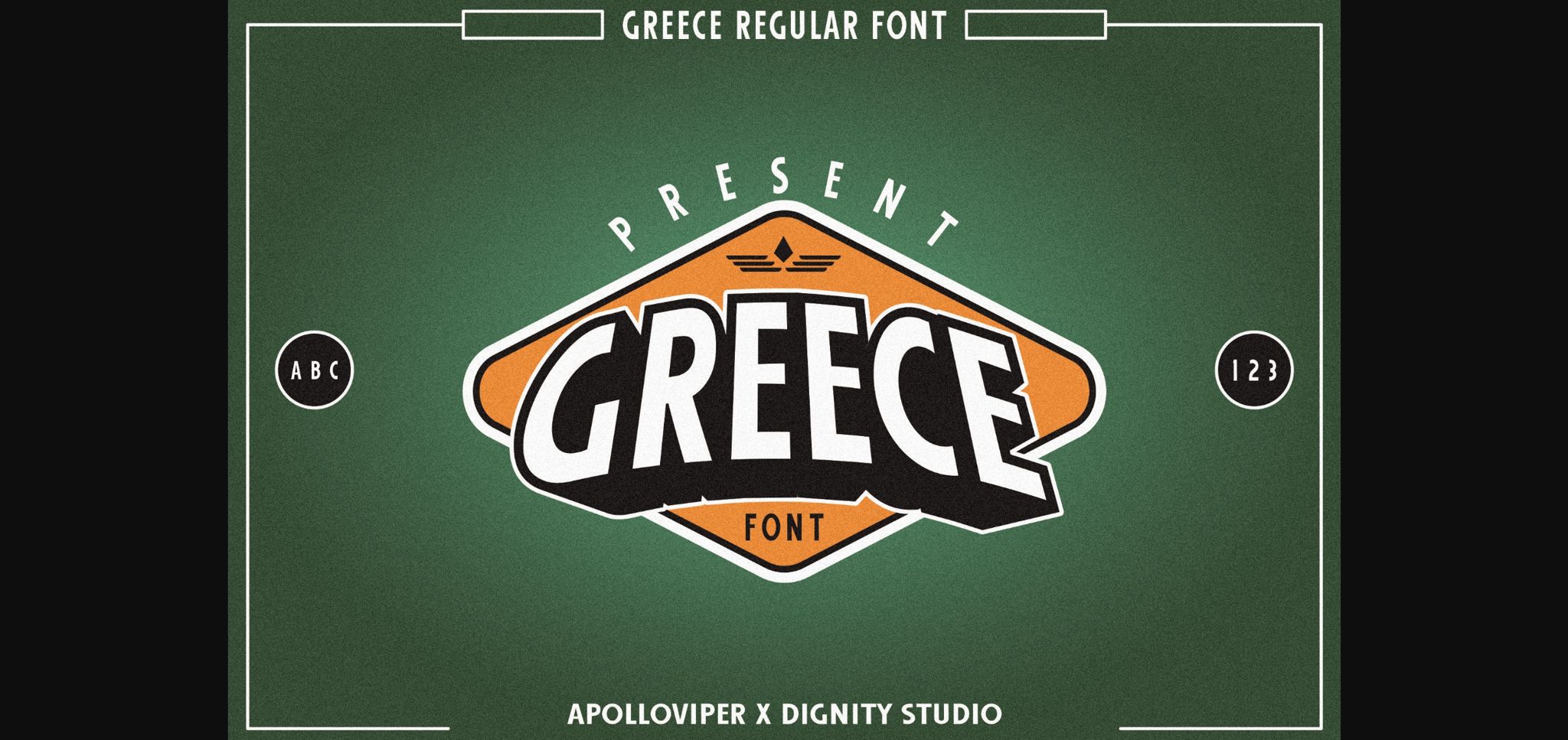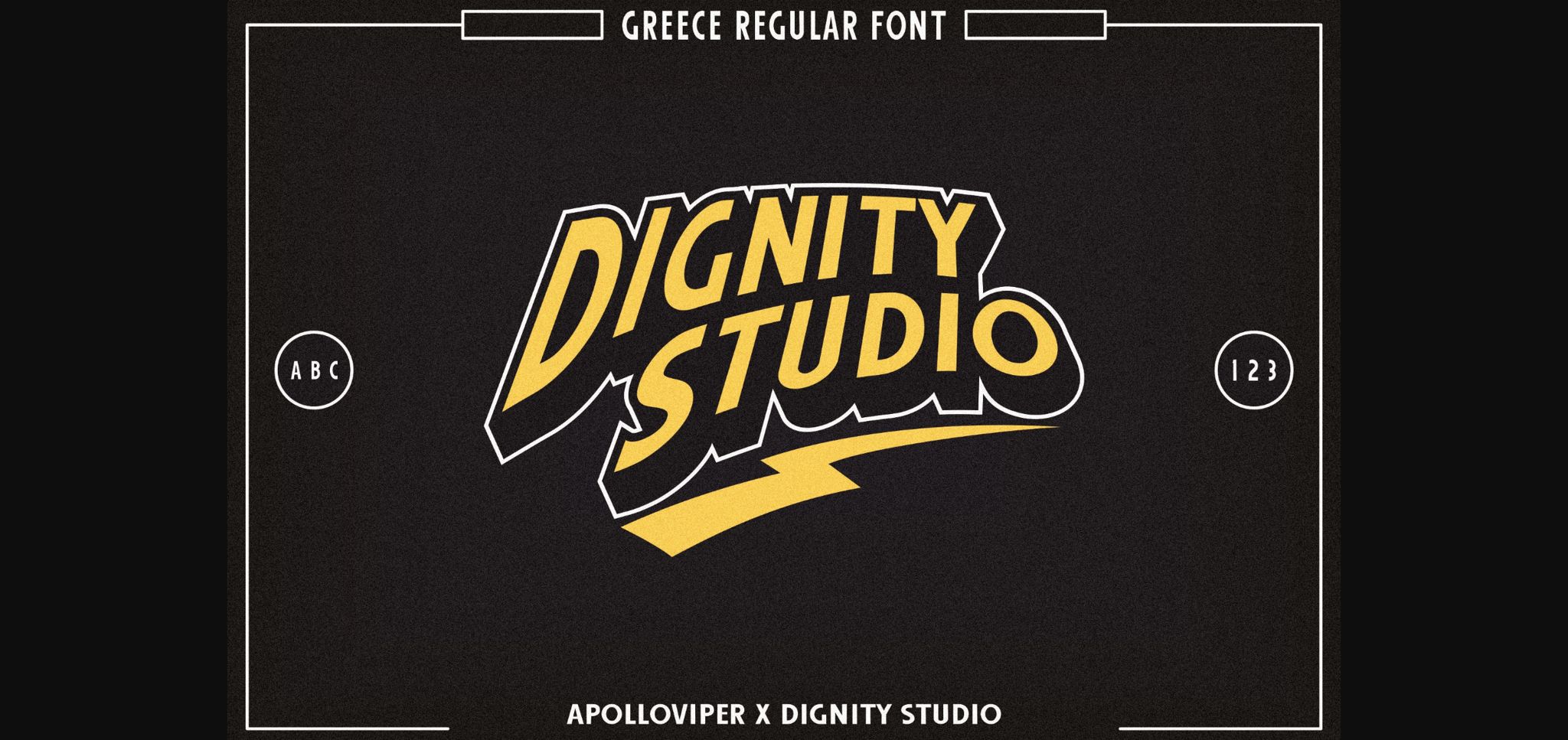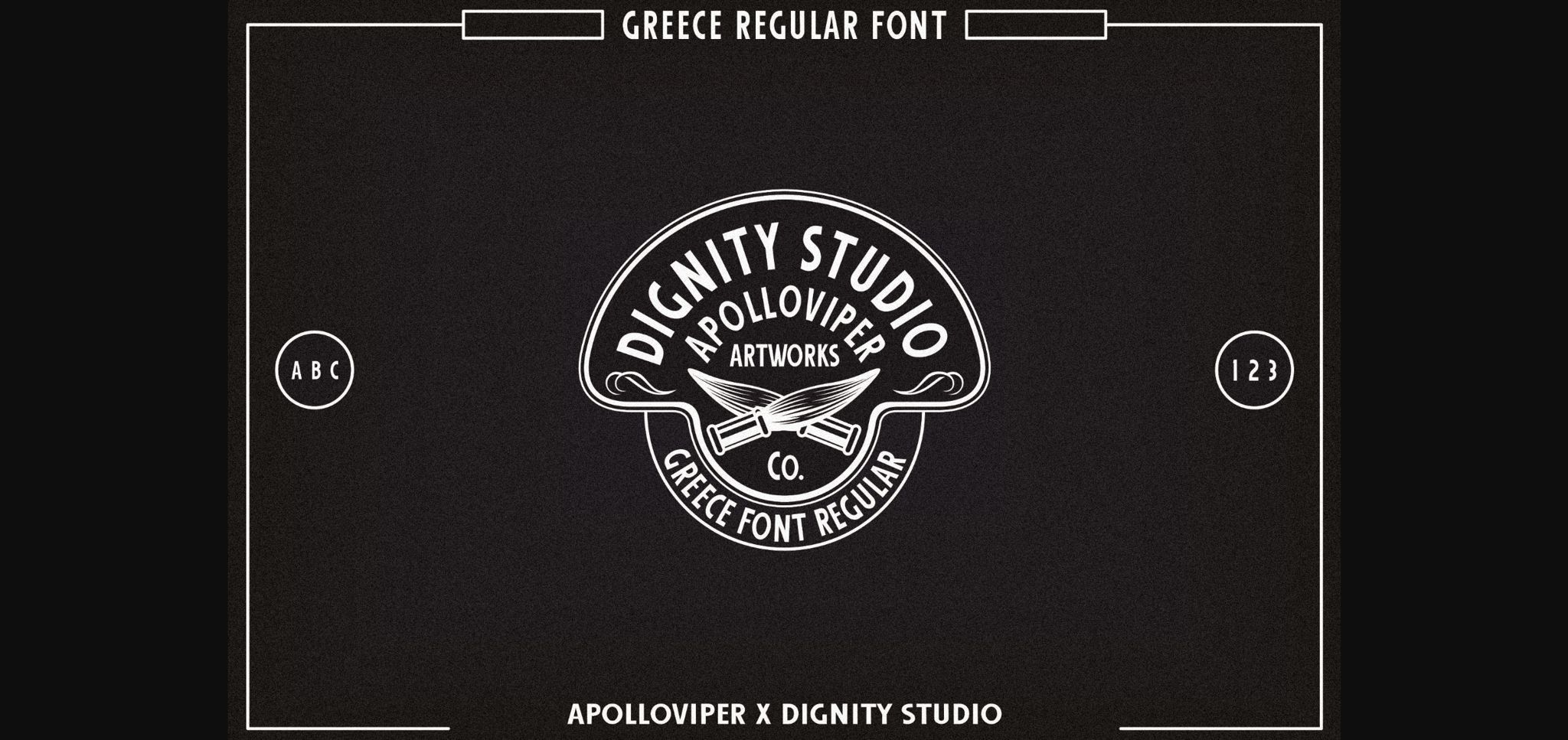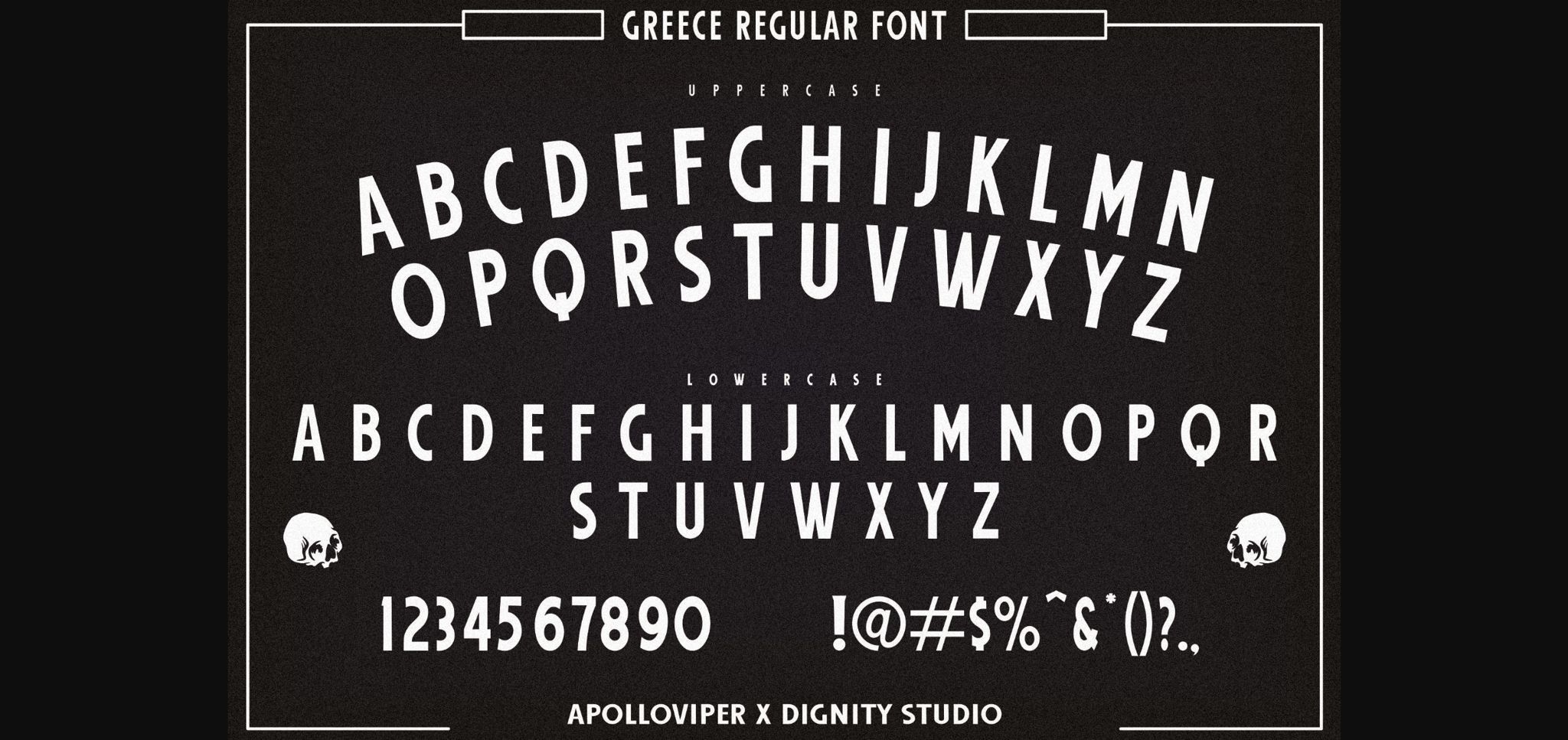
Greece is a classic sans serif font. Greece will look outstanding in any context, whether it’s being used on busy backgrounds or as a standalone headline!